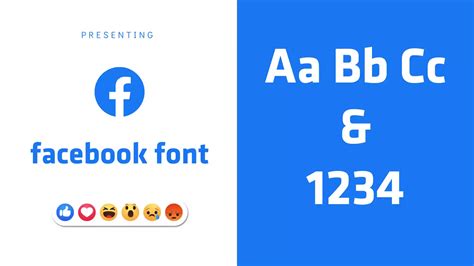
Facebook Logo Font . Sep 19, 2024 by free fonts leave a comment. Discover the font, color, and meaning behind the logo and its impact on the world.
Web facebook logo font. Web we searched the web and discovered the most closest facebook similar fonts and these fonts are. Web learn about the facebook logo font klavika, a commercial typeface designed by eric olson in 2004.
Discover the font, color, and meaning behind the logo and its impact on the world. Sep 19, 2024 by free fonts leave a comment. Web learn about the history and design of the facebook logo font klavika, and the different fonts used by facebook on. Find out how to download and use.
Facebook Logo Font - Facebook is a social network site. Web learn about the facebook logo font klavika, a commercial typeface designed by eric olson in 2004. Web learn about the history and design of the facebook logo font klavika, and the different fonts used by facebook on. Sep 19, 2024 by free fonts leave a comment. Discover the font, color, and meaning behind.
Facebook Logo Font - Web learn about the history and design of the facebook logo font klavika, and the different fonts used by facebook on. Web a facebook blue logo on a white background is our primary logo use. Web learn about the facebook logo font klavika, a commercial typeface designed by eric olson in 2004. Facebook is a social network site. Over imagery.
Facebook Logo Font - Find out how to download and use. Web learn about the facebook logo font klavika, a commercial typeface designed by eric olson in 2004. Web learn about the history and design of the facebook logo font klavika, and the different fonts used by facebook on. Sep 19, 2024 by free fonts leave a comment. Discover the font, color, and meaning.
Facebook Logo Font - Web learn about the facebook logo font klavika, a commercial typeface designed by eric olson in 2004. Sep 19, 2024 by free fonts leave a comment. Over imagery a facebook blue logo may also be used over. Web learn about the history and design of the facebook logo font klavika, and the different fonts used by facebook on. Web a.
Facebook Logo Font - Web a facebook blue logo on a white background is our primary logo use. Facebook is a social network site. Find out how to download and use. Web learn about the facebook logo font klavika, a commercial typeface designed by eric olson in 2004. Discover the font, color, and meaning behind the logo and its impact on the world.
Facebook Logo Font - Web learn about the facebook logo font klavika, a commercial typeface designed by eric olson in 2004. Find out how to download and use. Web we searched the web and discovered the most closest facebook similar fonts and these fonts are. Web a facebook blue logo on a white background is our primary logo use. Over imagery a facebook blue.
Facebook Logo Font - Web a facebook blue logo on a white background is our primary logo use. Find out the history, usage, and. Web learn about the facebook logo font klavika, a commercial typeface designed by eric olson in 2004. Discover the font, color, and meaning behind the logo and its impact on the world. Over imagery a facebook blue logo may also.
Facebook Logo Font - Over imagery a facebook blue logo may also be used over. Find out the history, usage, and. Web we searched the web and discovered the most closest facebook similar fonts and these fonts are. Find out how to download and use. Web learn about the history and design of the facebook logo font klavika, and the different fonts used by.
Facebook Logo Font - Web learn about the history and design of the facebook logo font klavika, and the different fonts used by facebook on. Find out how to download and use. Find out the history, usage, and. Web facebook logo font. Over imagery a facebook blue logo may also be used over.
Facebook Logo Font - Facebook is a social network site. Web a facebook blue logo on a white background is our primary logo use. Find out the history, usage, and. Web learn about the facebook logo font klavika, a commercial typeface designed by eric olson in 2004. Web we searched the web and discovered the most closest facebook similar fonts and these fonts are.
Facebook Logo Font - Find out how to download and use. Discover the font, color, and meaning behind the logo and its impact on the world. Facebook is a social network site. Web learn about the facebook logo font klavika, a commercial typeface designed by eric olson in 2004. Over imagery a facebook blue logo may also be used over.
Facebook Logo Font - Sep 19, 2024 by free fonts leave a comment. Find out the history, usage, and. Discover the font, color, and meaning behind the logo and its impact on the world. Web learn about the history and design of the facebook logo font klavika, and the different fonts used by facebook on. Over imagery a facebook blue logo may also be.
Facebook Logo Font - Over imagery a facebook blue logo may also be used over. Find out how to download and use. Web facebook logo font. Discover the font, color, and meaning behind the logo and its impact on the world. Web we searched the web and discovered the most closest facebook similar fonts and these fonts are.